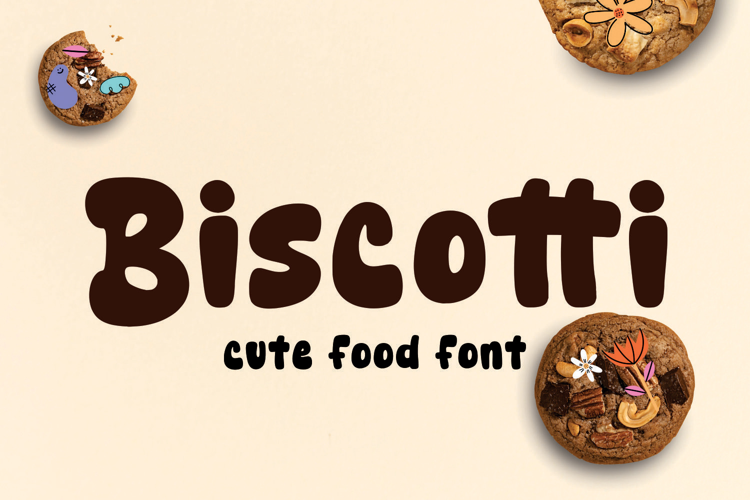
Introducing, this is our newest product, we call this product Biscuit,
It looks amazing with sweet touches and beautiful curves in each letter. Biscuit fonts are perfect for: wedding invitations, fashion magazines, logos, signatures, photography, watermarks, wall displays, social media,